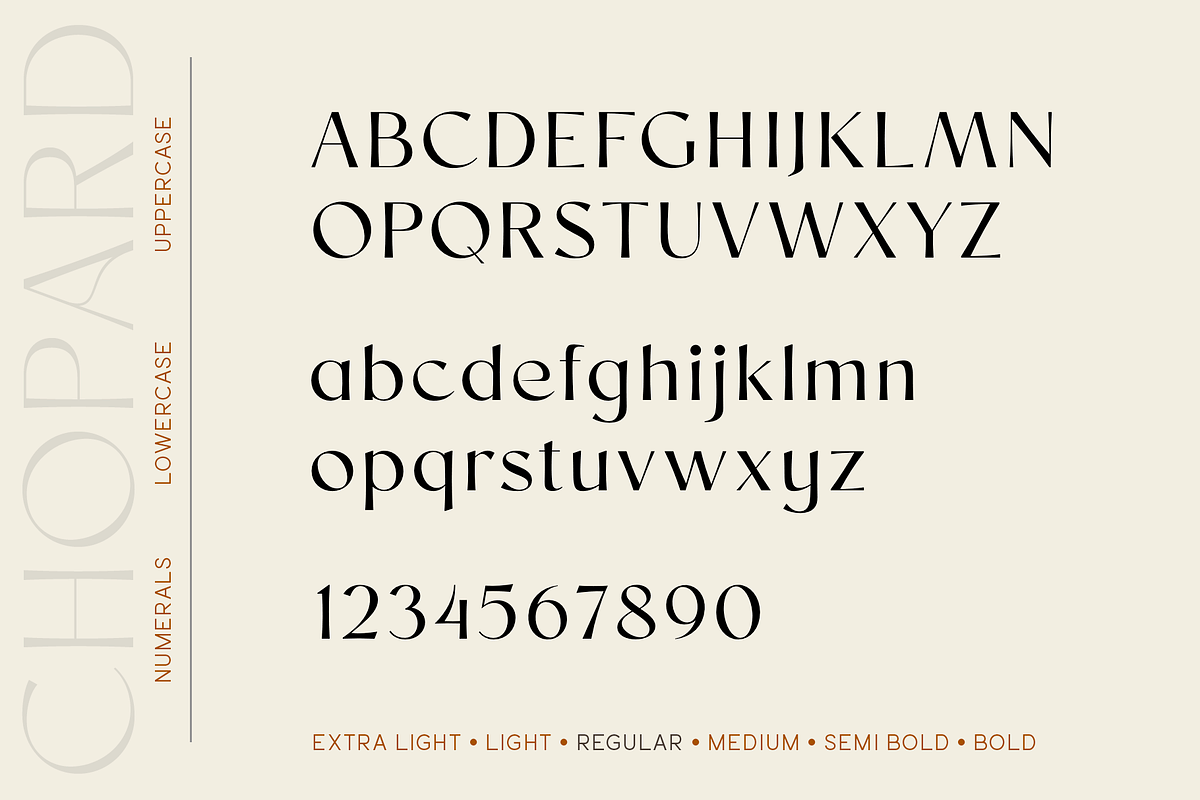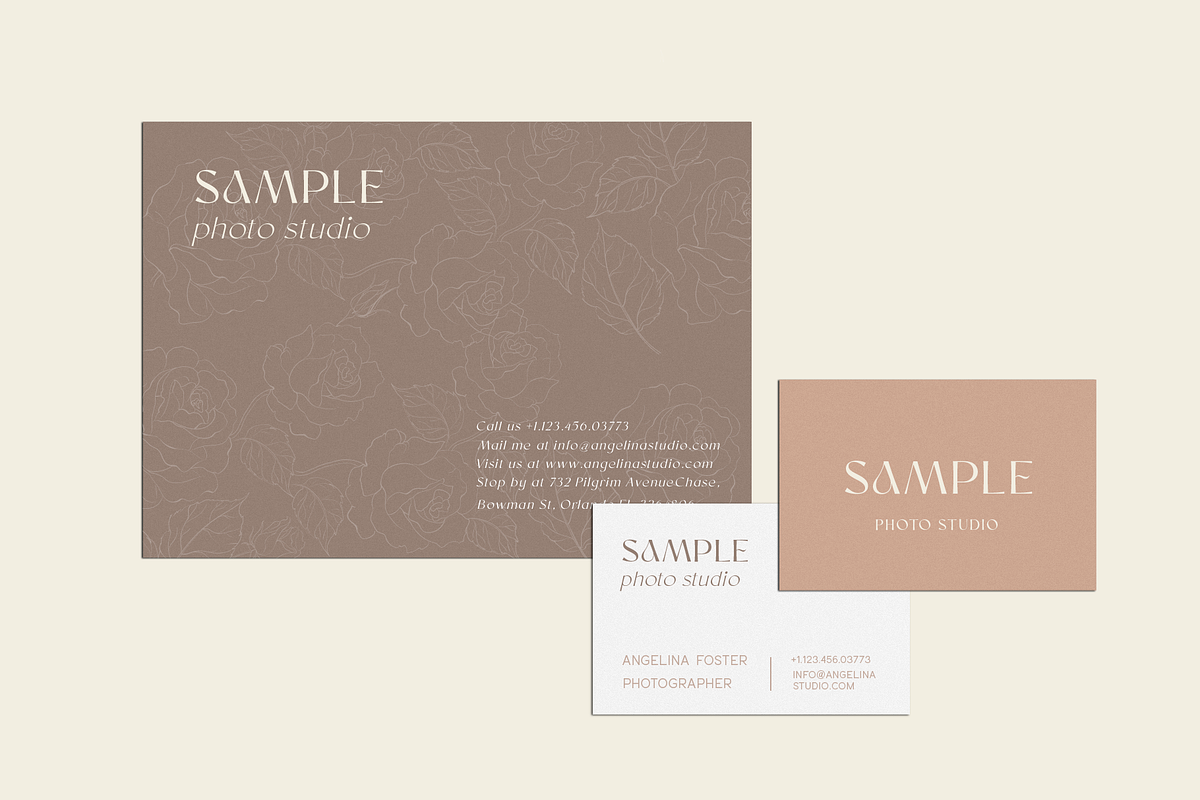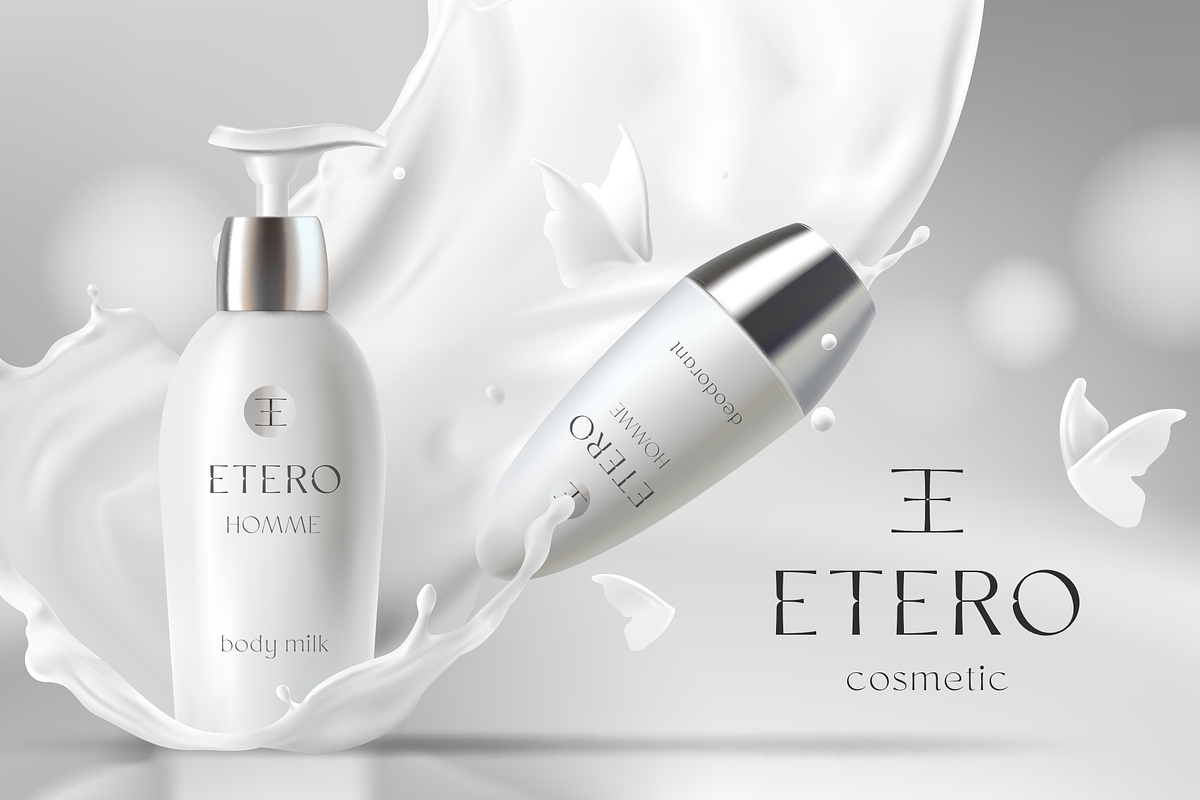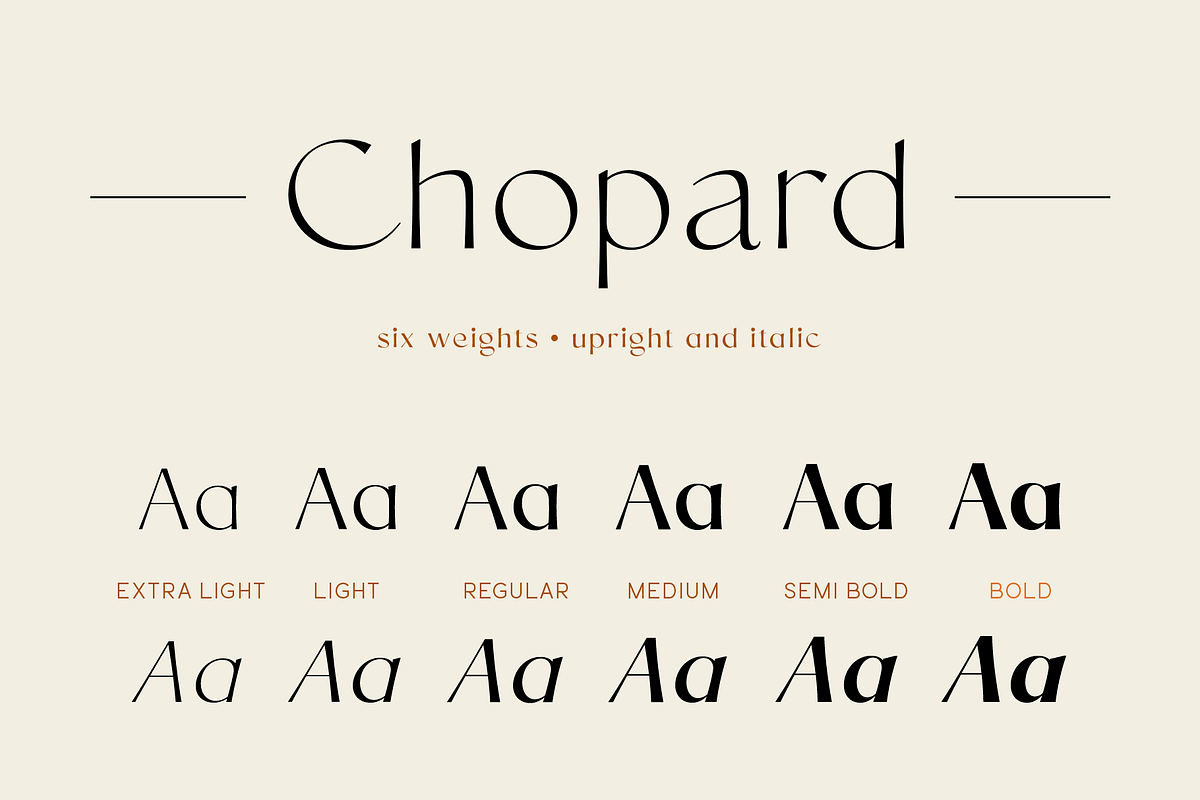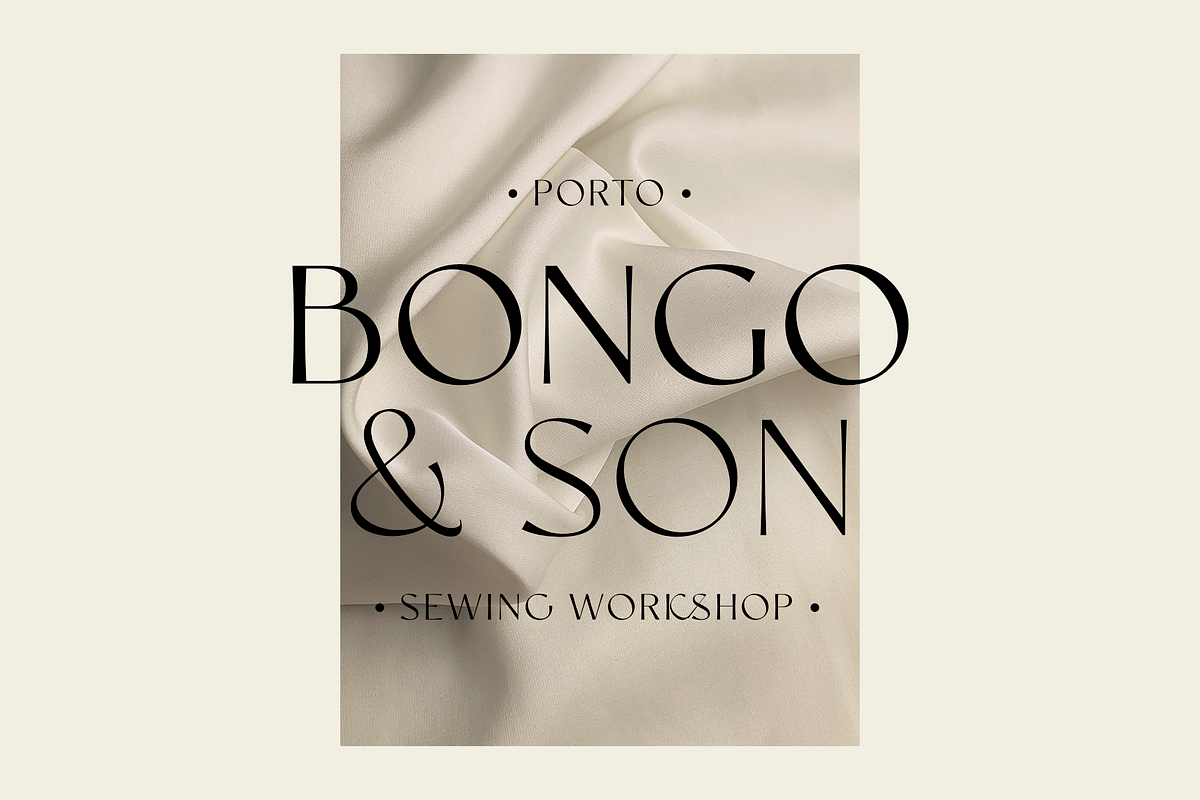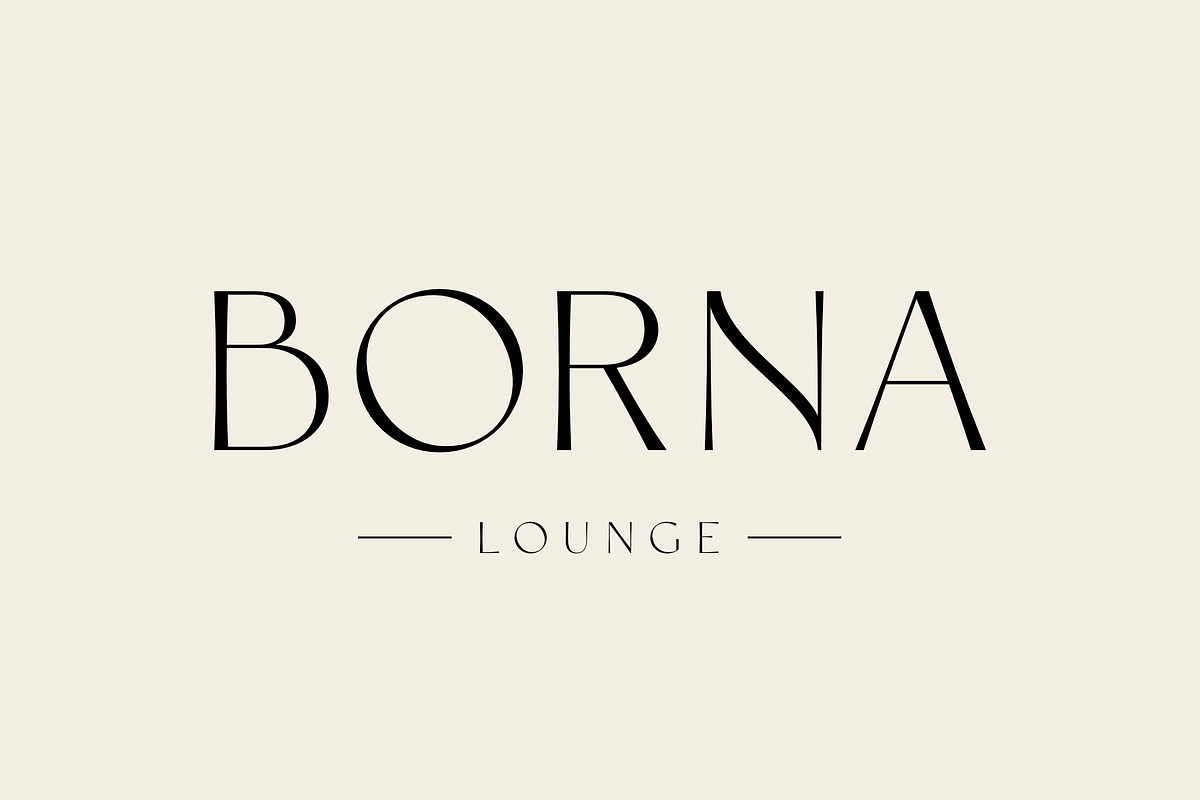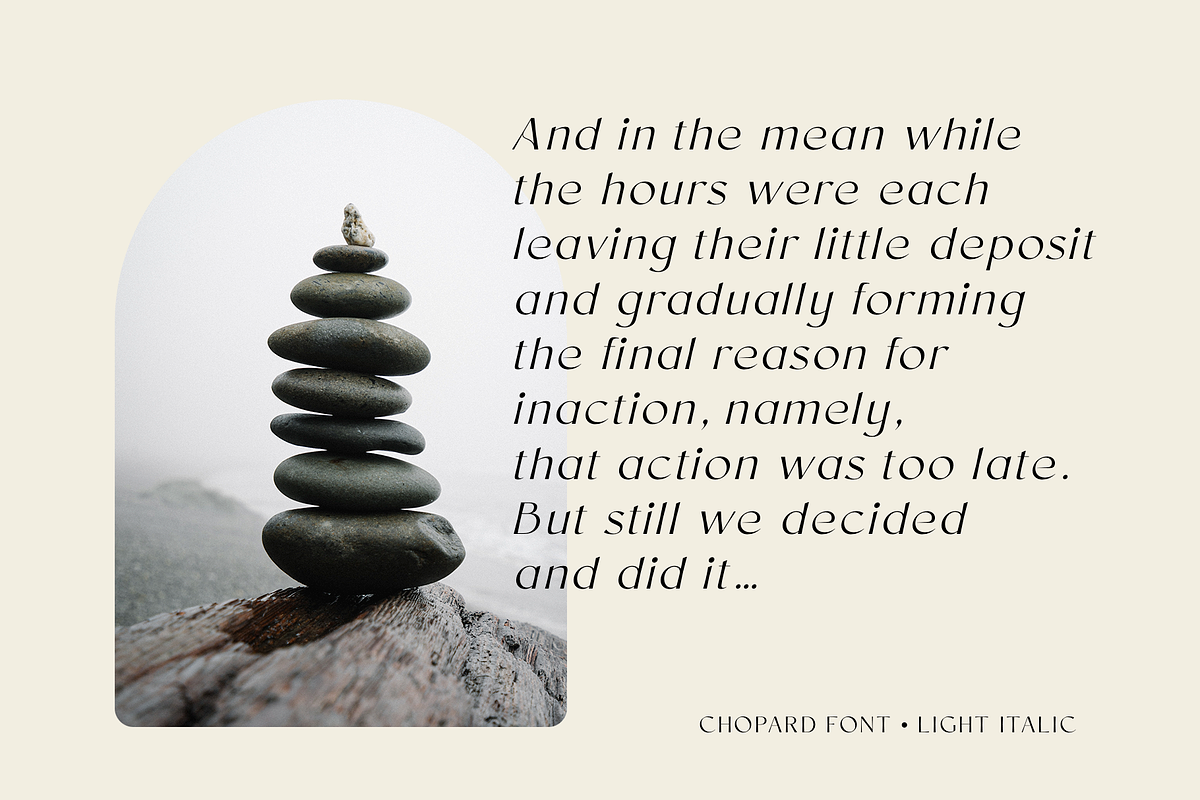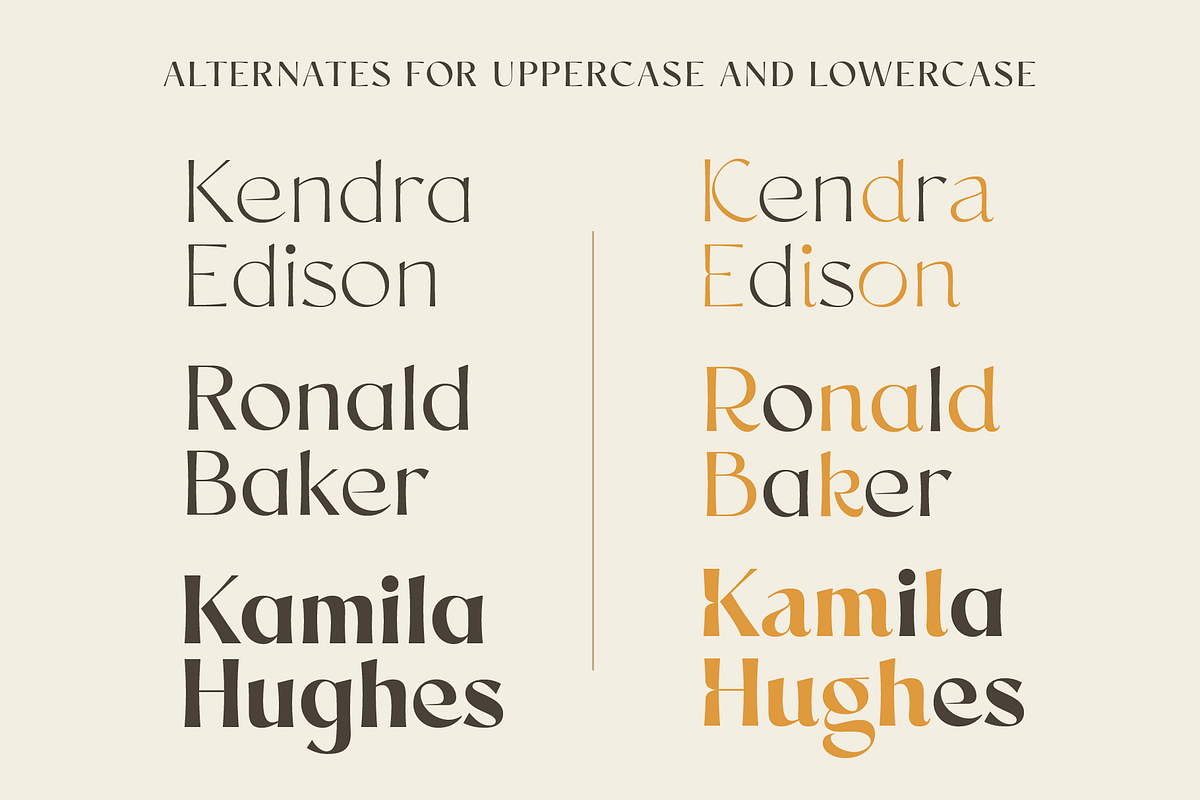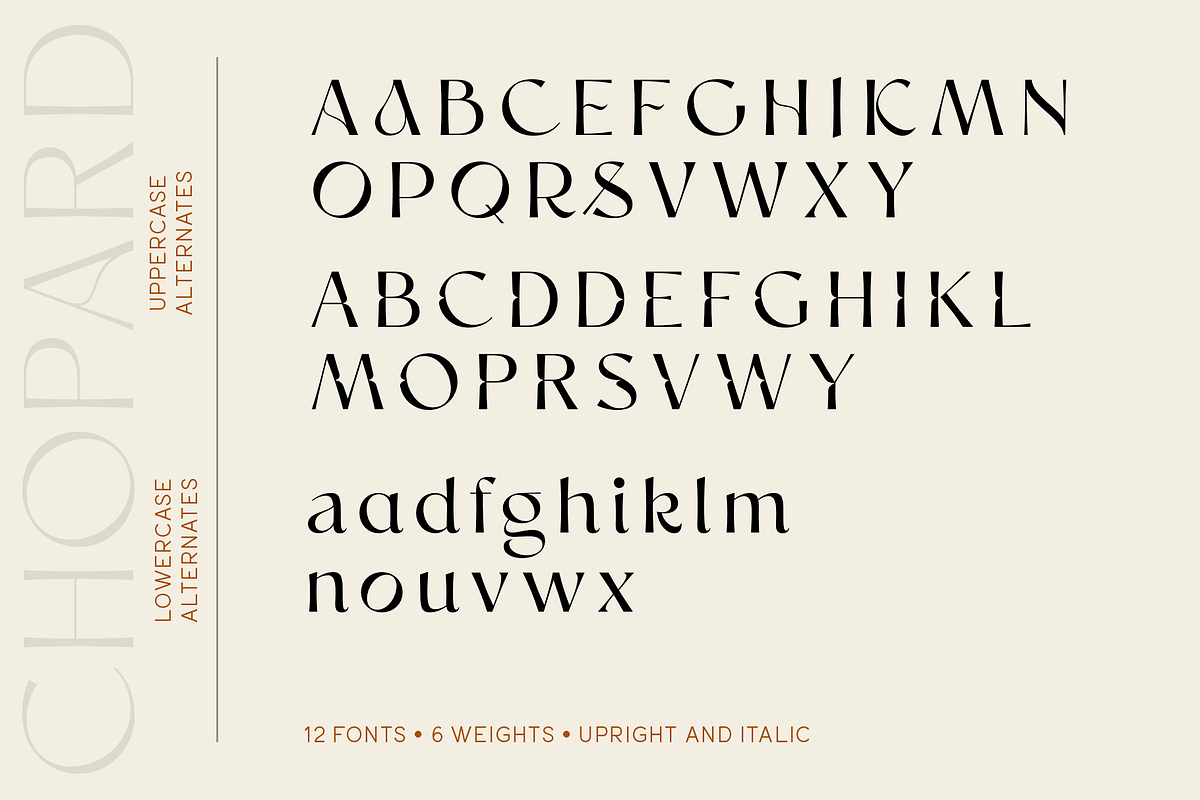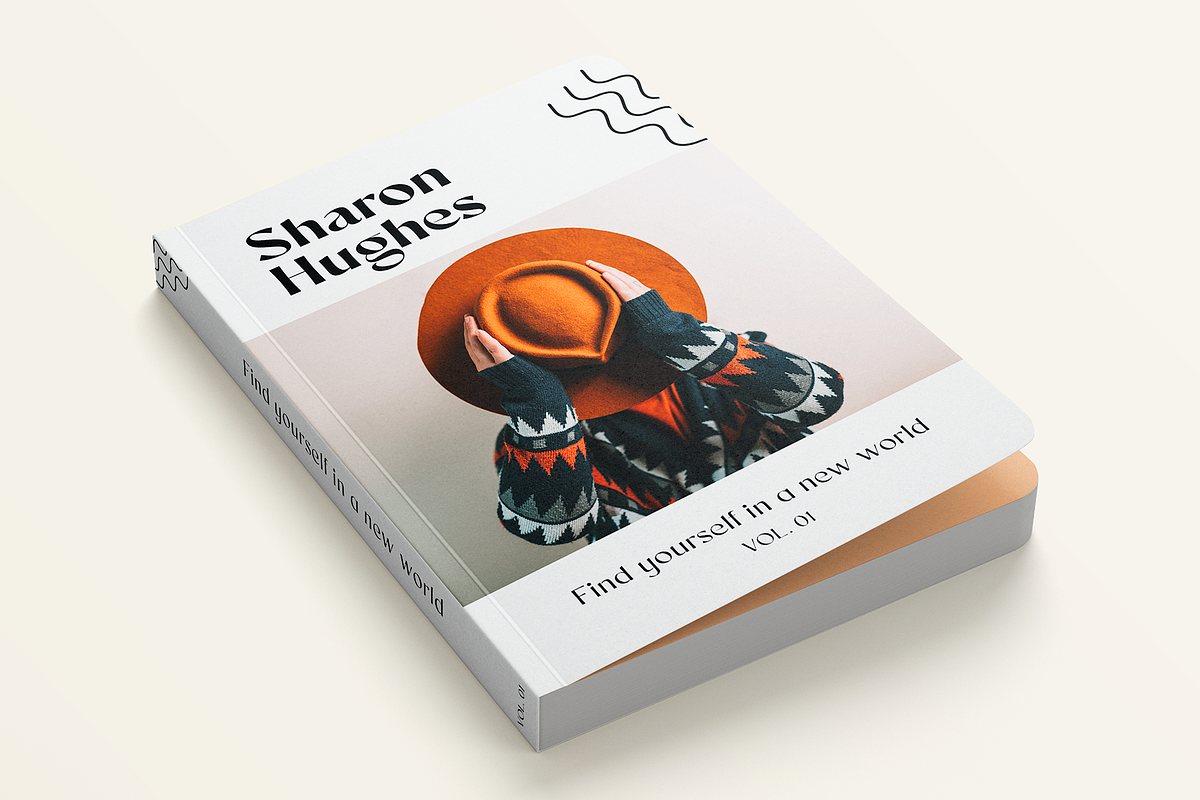
Chopard | Font family
Chopard is an elegant and modern sans-serif font family. It includes upright and Italic style, each of them has six weights from light to bold. This is a multi-purpose font that is perfect for any project, it is contrasted, modern and easy to read. With it, you can create logos, use in advertising, packaging, book covers and magazines, headings, descriptions and much more.
Chopard includes stylistic alternates for uppercase and lowercase, with them you can add dynamics to the font and make your project more individual and stylized. This font is easy to use has OpenType features.
Following international symbols support: ÀÁÂÃÄÅĄÇĆÈÉÊËĘÌÍÎÏÐÑŃŁÒÓÔÕÖØÙÚÛÜŚŠŸÝŹŻŽßàáâãäåçèéêëìíîïðñòóôõöøùúûüýÿąćęłńśšźżž
Full alphabet with Uppercase and Lowercase A-z
Numbers, fractions
Punctuation and symbols
Alternates for uppercase
Alternates for lowercase also ampersand